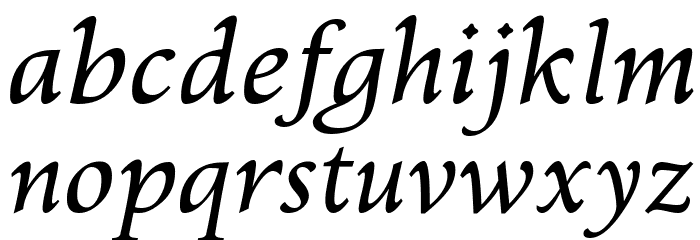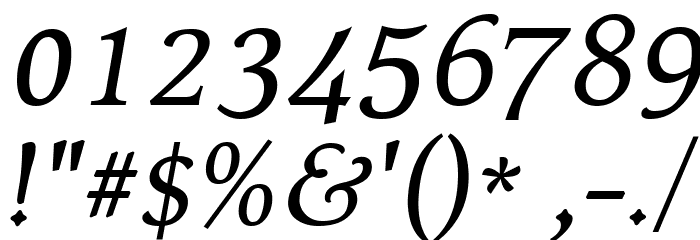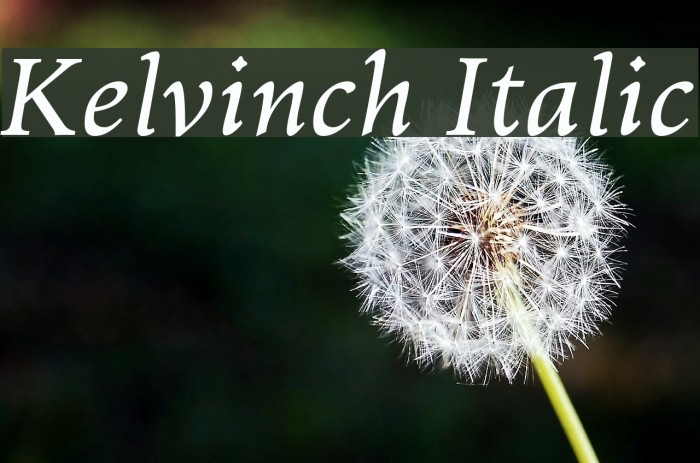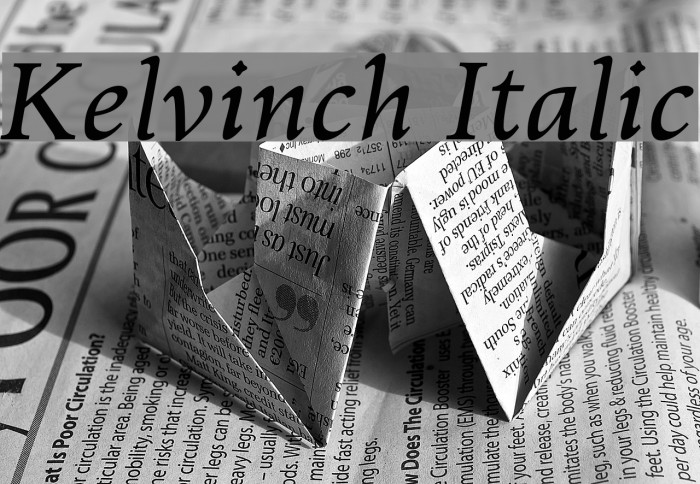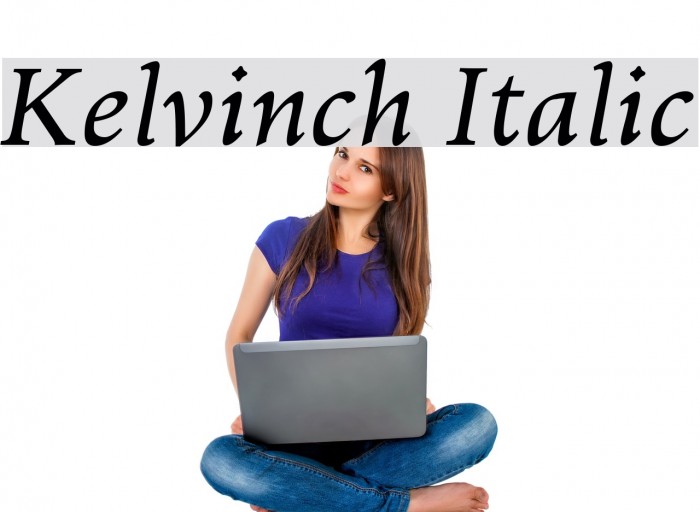
Kelvinch Italic Font
This font presents a classic and elegant italic style, characterized by its smooth and flowing curves. The uppercase letters maintain a traditional serif structure, while the lowercase letters exhibit a graceful slant, enhancing the overall sophistication. The numerals are well-proportioned, aligning seamlessly with the alphabetic characters. Special characters are thoughtfully designed, maintaining consistency in style and weight. The font's italic nature adds a dynamic and refined touch, making it suitable for formal and creative applications alike.
An elegant italic serif font with smooth curves and a classic style.
- Proposed Projects: Ideal for wedding invitations, formal event programs, elegant branding, and editorial design.
- Category: Serif
- Overall Style: Classic
- Use Case: Headlines, Body text, Logos